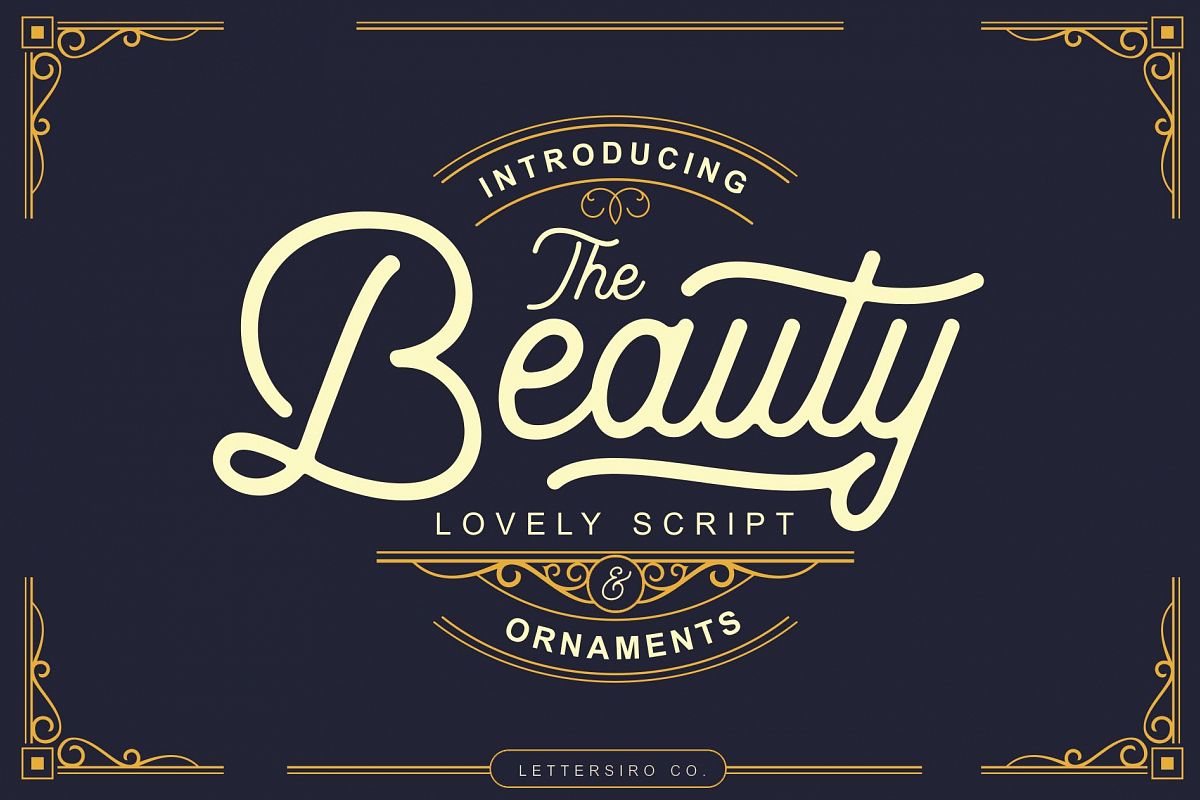
Beauty Script & Ornaments
Beauty
Beauty Rough
Introducing our new product called The Beauty.
The Beauty is perfectly used for vintage project, logo, badge, quotes,
poster, and others. The Beauty also come with special ornaments that
allow you to make beautiful combinations text-ornaments.
• Stylistic Alternate
• Swash Uppercase and Lowercase
• Stylistic Set 01 , 02 , 03
• Ending Swash (instructions available in image presentation)
This is one of my favorite monoline scripts and always chosen by customers for their designs.